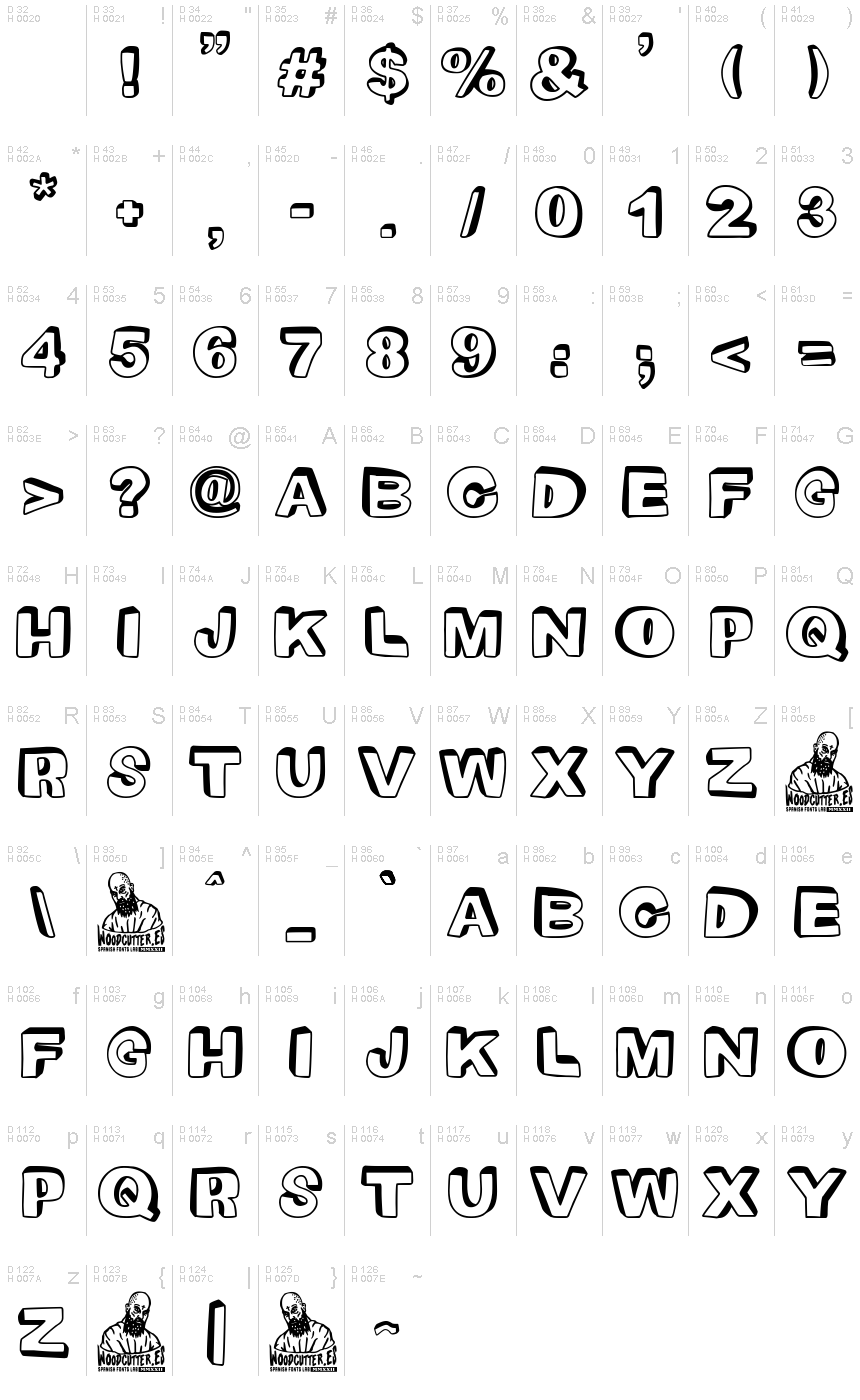
Brooklyn Chill Out
Embracing the whimsical charm of Brooklyn Chill Out, this bold, cartoon-inspired font by Woodcutter exudes a playful and carefree spirit. Its quirky letterforms and dynamic lines captivate the eye, inviting viewers to immerse themselves in a world of laid-back creativity. The font's distinctive style seamlessly blends retro influences with a modern sensibility, making it a standout choice for designers seeking to infuse their projects with a touch of urban cool.
Brooklyn Chill Out's versatility shines through, making it a versatile option for a wide range of design applications. From eye-catching headlines and playful logo designs to engaging social media content and vibrant packaging, this font's personality-driven aesthetic lends itself beautifully to projects that aim to convey a sense of relaxed confidence and youthful energy. Whether you're crafting a brand identity that celebrates the spirit of a hip neighborhood or seeking to inject a dose of urban charm into your creative endeavors, Brooklyn Chill Out by Woodcutter is a font that is sure to leave a lasting impression.